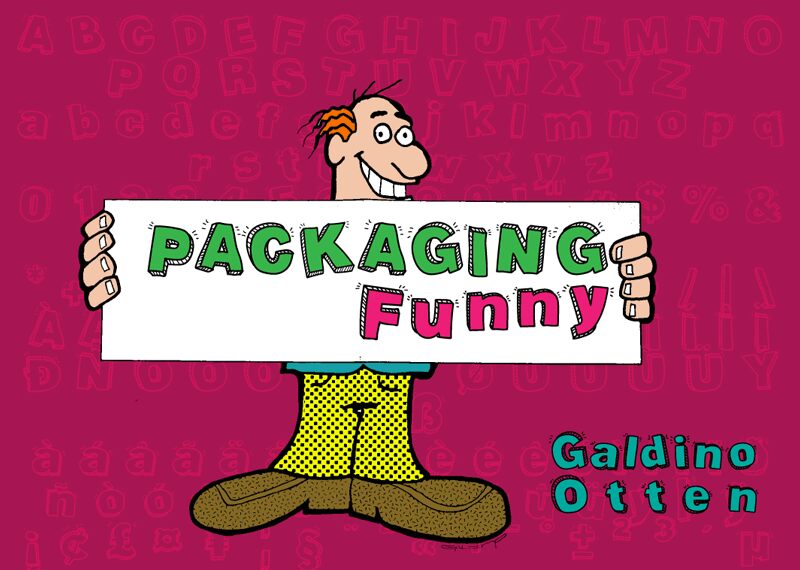
Packaging Funny
"Packaging Funny" is a bold and playful display font that exudes a distinct 3D cartoon aesthetic. Designed by Galdino Otten, this font's charmingly distorted letterforms and dynamic strokes instantly captivate the eye. The exaggerated, almost whimsical curves and thick, textured lines lend a sense of energy and fun, making it an ideal choice for branding, packaging, and a wide range of lively, attention-grabbing design applications. Its versatile and eye-catching style seamlessly bridges the gap between modern and retro, ensuring "Packaging Funny" stands out in any creative project.
Packaging Funny's striking visual identity makes it a compelling option for designers seeking to infuse their work with a touch of playful, quirky charm. Its bold, distinctive character lends itself well to various design contexts, from product labels and logo designs to poster artwork and children's illustrations.